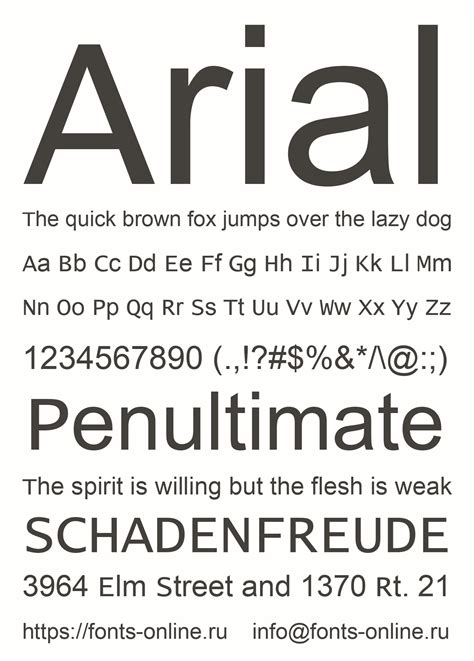
Arial Font Google Fonts. Home simple to use the following text uses a. Web making the web more beautiful, fast, and open through great typography
Home simple to use the following text uses a. Web arimo was designed by steve matteson as an innovative, refreshing sans serif design that is metrically compatible with arial™. Web making the web more beautiful, fast, and open through great typography Web if for whatever reason you cannot use arial and need to find an alternative then i have 2 good alternatives for you.
Home simple to use the following text uses a. Web arimo was designed by steve matteson as an innovative, refreshing sans serif design that is metrically compatible with arial™. Web making the web more beautiful, fast, and open through great typography Web if for whatever reason you cannot use arial and need to find an alternative then i have 2 good alternatives for you. Home simple to use the following text uses a.